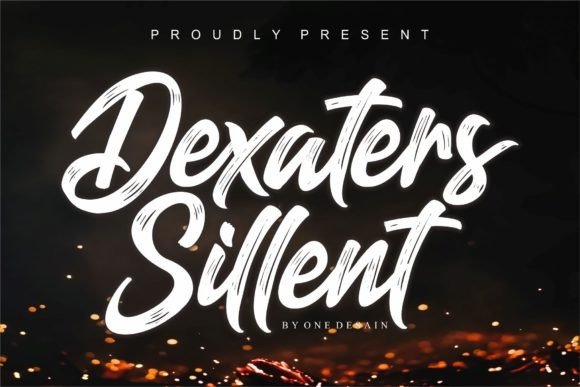
Dexaters Sillent Font
Dexaters Sillent Brush Font is a strong brush script typeface with its own masculine feel in it. It’s a brushed and bold hand-drawn Typeface created by One Desain. Bulgatten is perfect for branding projects, logo, social media posts, advertisements, product packaging, product designs, label, and any projects that you work on.